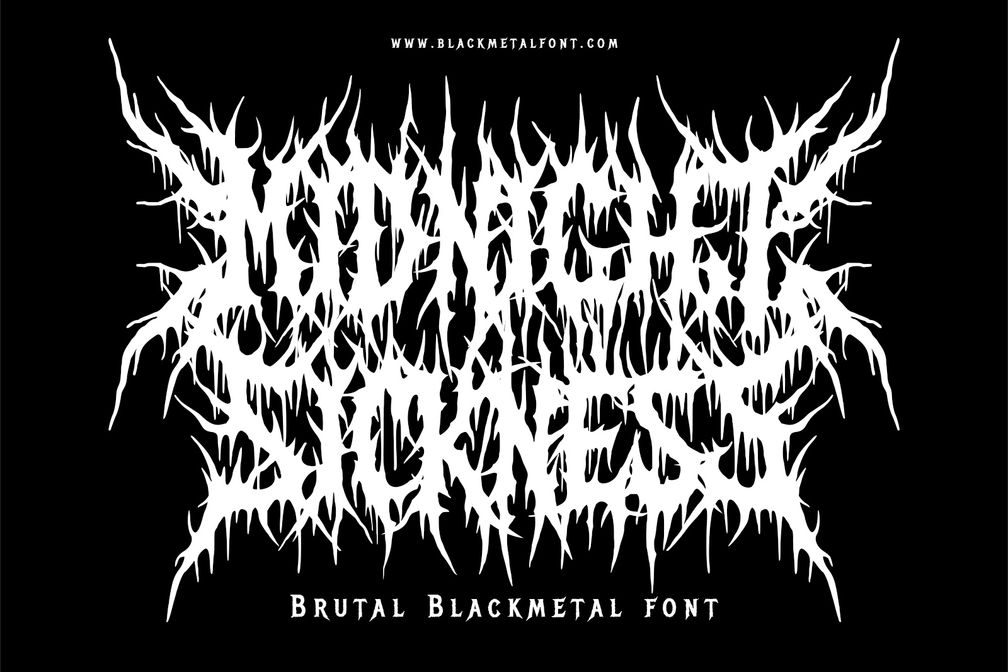
Midnight Sickness – Brutal Black Metal Font from BlackMetalFont.com
Step into the abyss with Midnight Sickness, a brutal black metal font drenched in chaos, decay, and darkness. Created by the twisted minds at BlackMetalFont.com, this typeface is designed to capture the true essence of the underground metal scene—raw, venomous, and unrelentingly brutal.
Whether you're creating band logos, album artwork, or extreme posters, Midnight Sickness makes it insanely easy to create authentic metal logos in seconds. No more hours spent drawing by hand—just type, and the madness unfolds. This is the perfect solution for bands, artists, and designers who want an easy logo creation experience without compromising the true black metal spirit.
With sharp, thorn-like details and aggressive dripping forms, every glyph feels alive—like a cursed forest twisting into letters. Midnight Sickness includes:
Capital letters with a clean initial shape
Alternate uppercase characters with spiked and twisted endings
Lowercase letters that preserve the brutal energy
Additional ornaments to enhance your design and add ritualistic metal vibes
Use it for death metal, black metal, goregrind, or horror-related artwork—it’s a weapon for your darkest concepts.
Why Midnight Sickness?
Designed for brutal and chaotic aesthetics
Instant black metal look—easy create metal logo in seconds
Comes with alternate letters and killer ornaments
Built for bands, music merch, posters, and covers